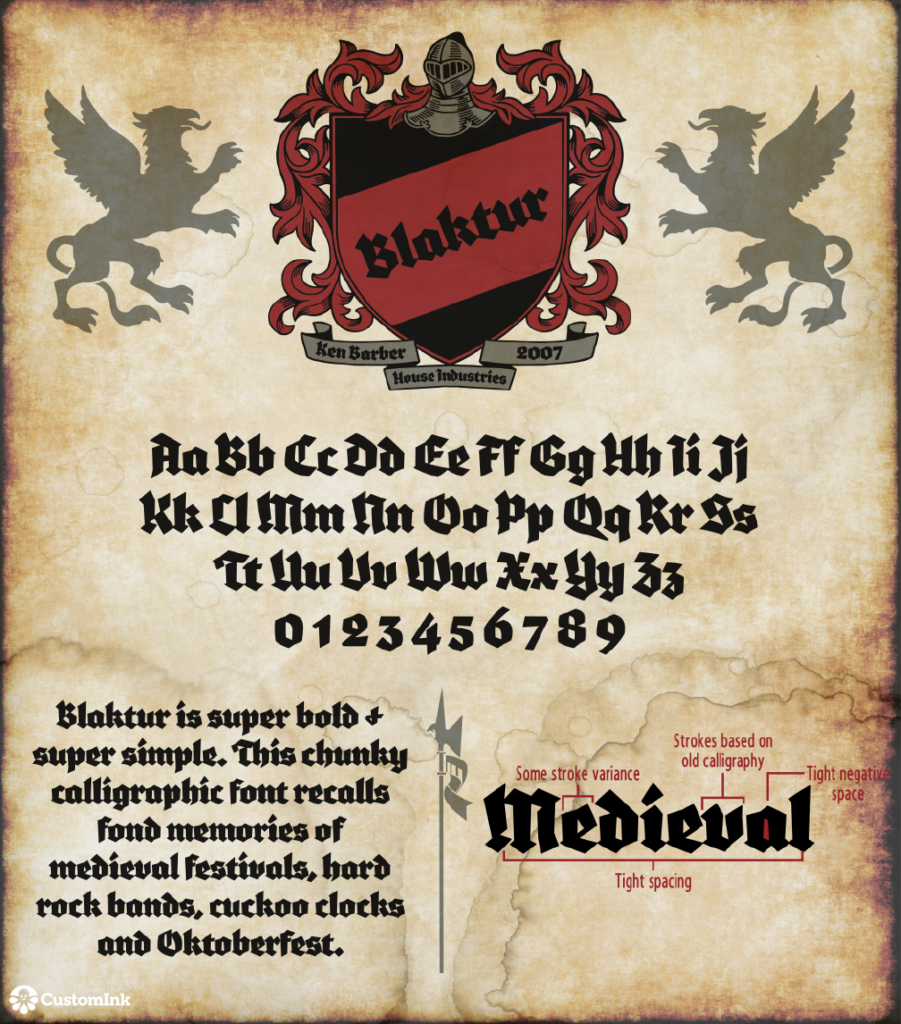
Font of the Week — Blaktur
This House Industries tough guy was created in 2007 by Ken Barber. Both bold and simple, this typeface calls back to the darker Medieval ages. It’s chunky lines can make it tough to decipher, but it also makes it the perfect choice for that heavy metal album art or Octoberfest celebration.